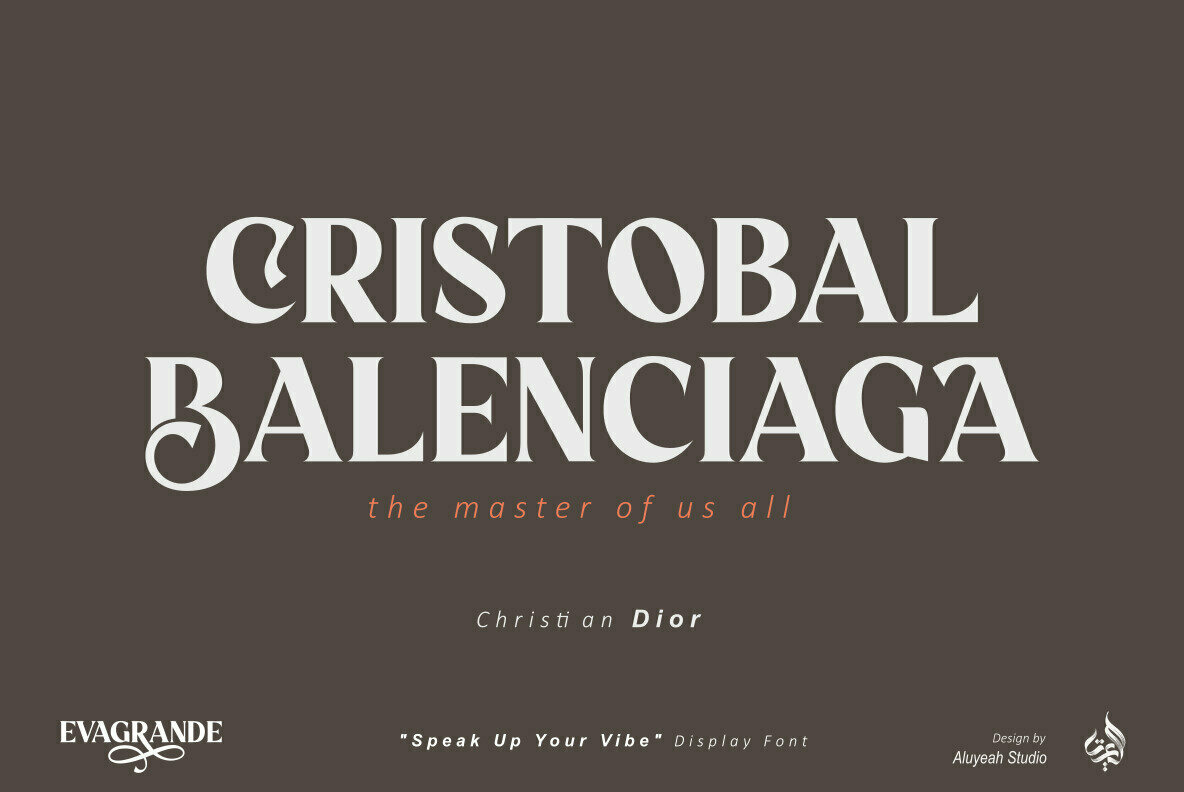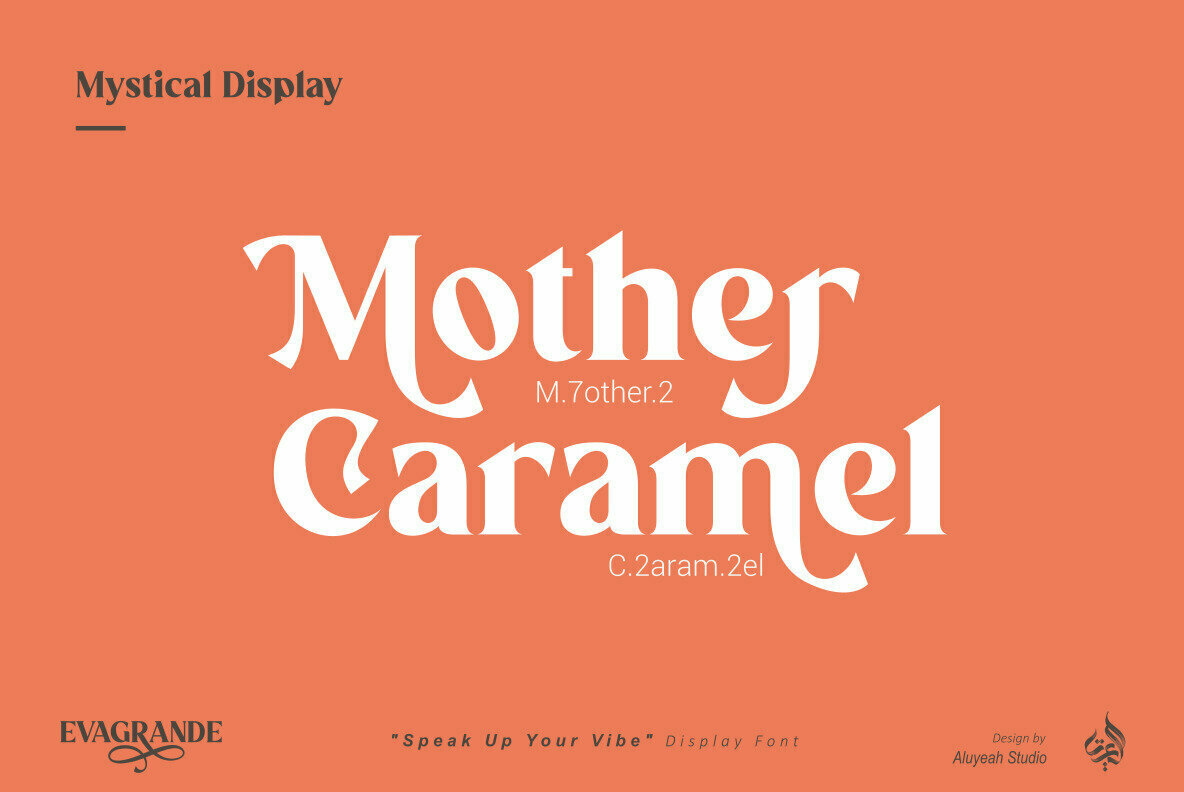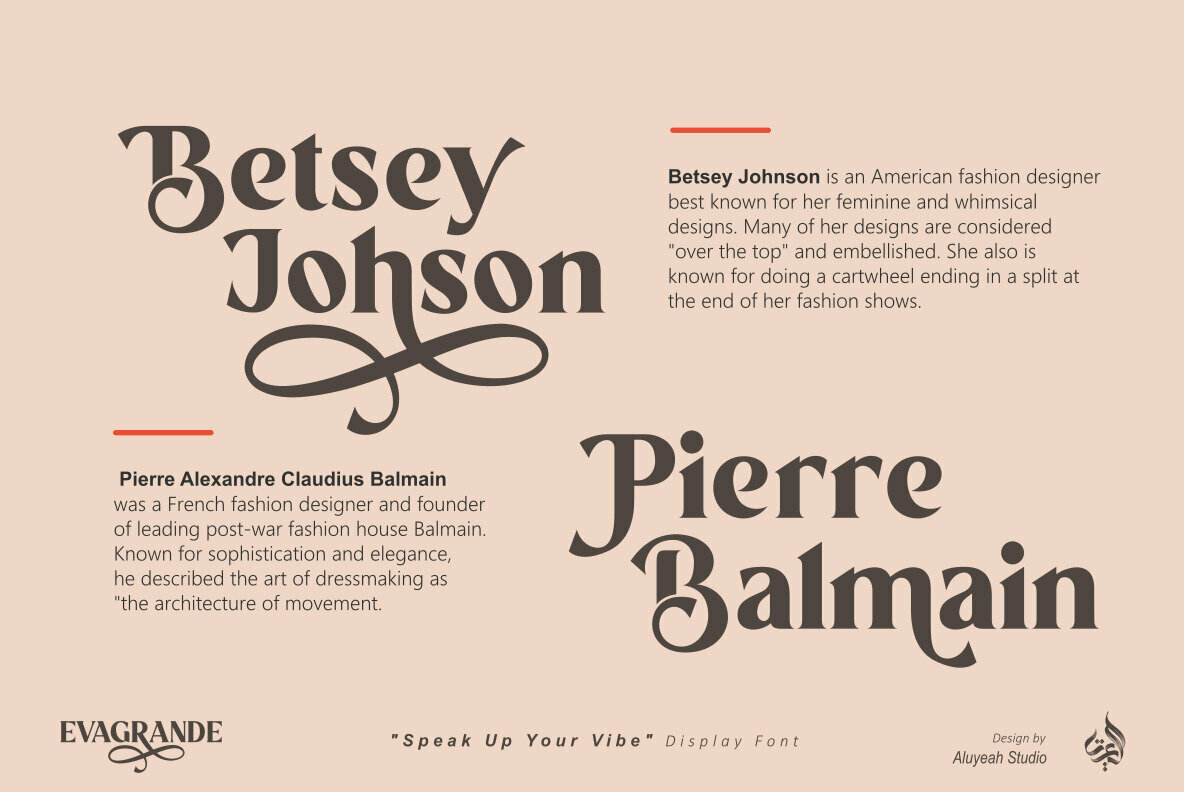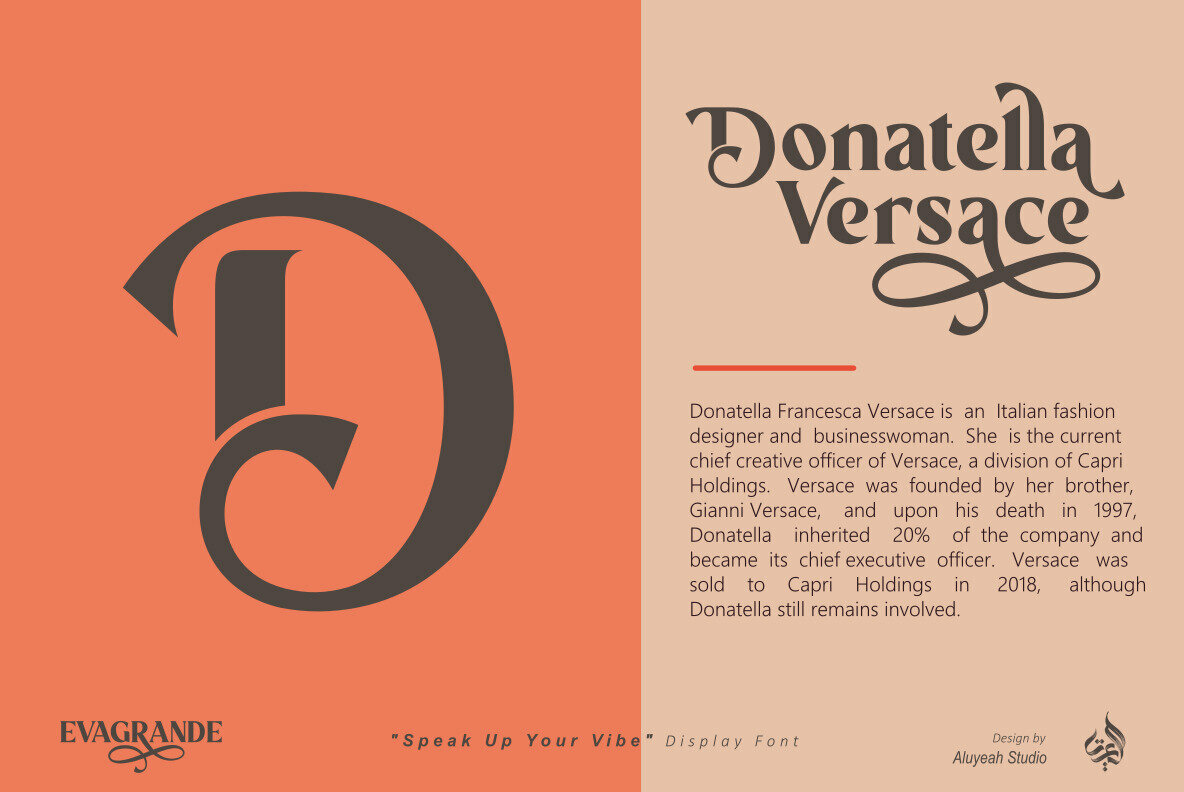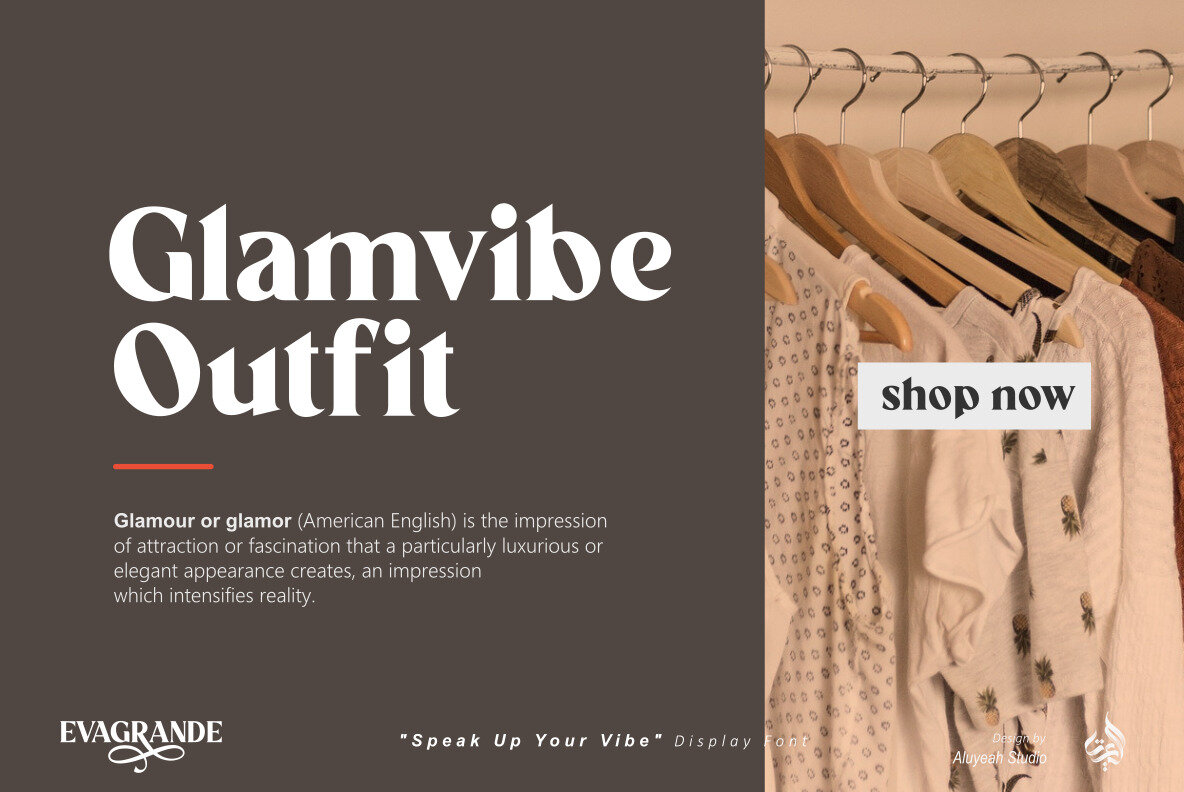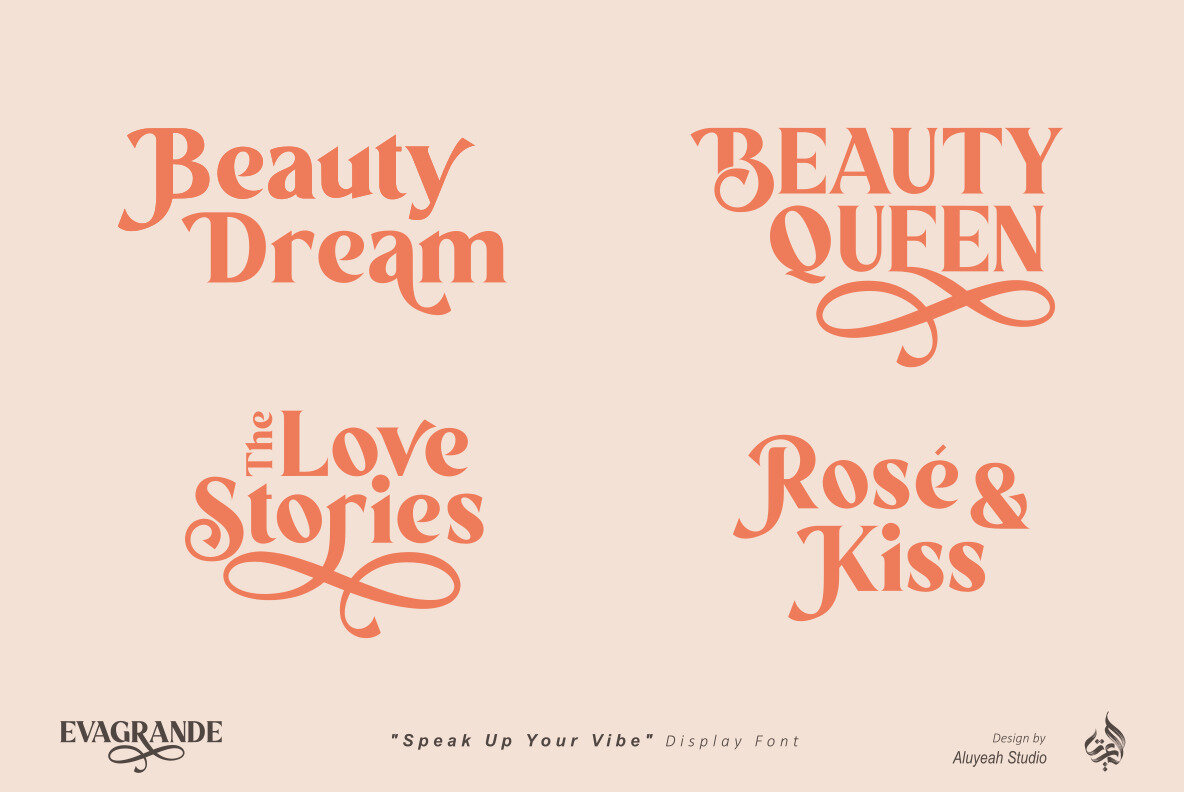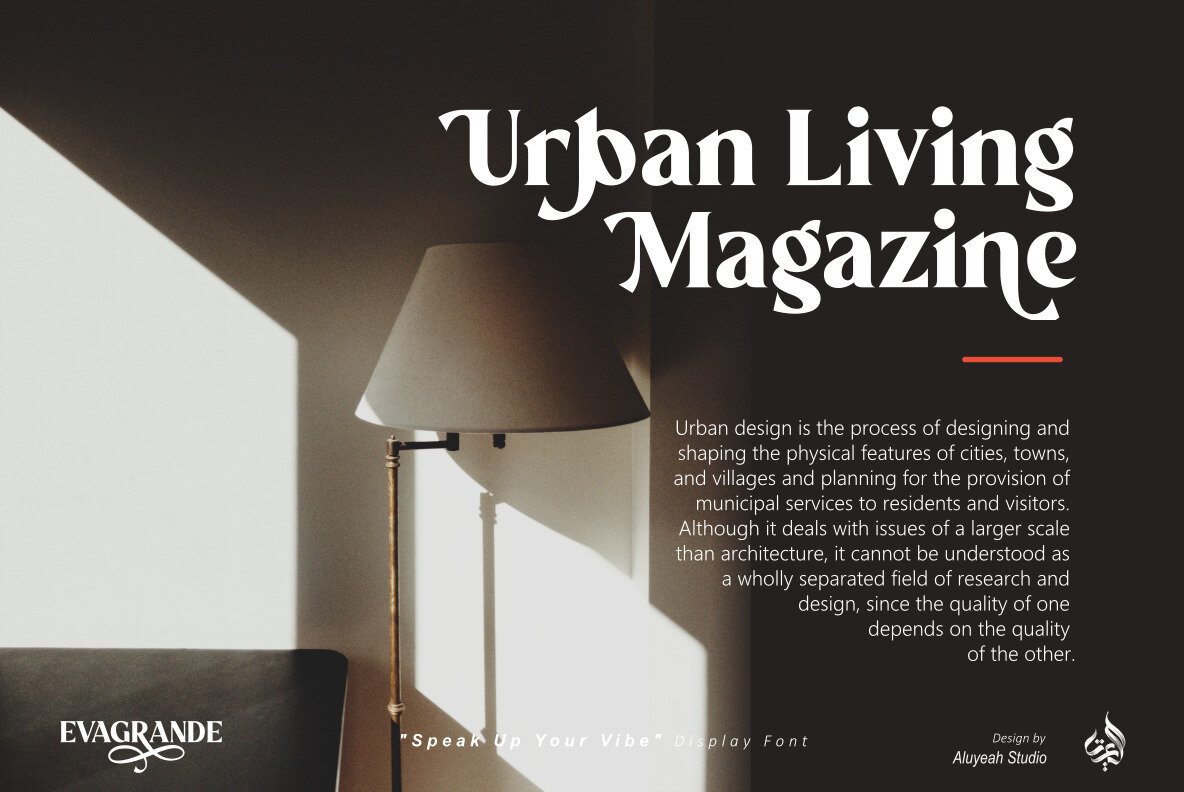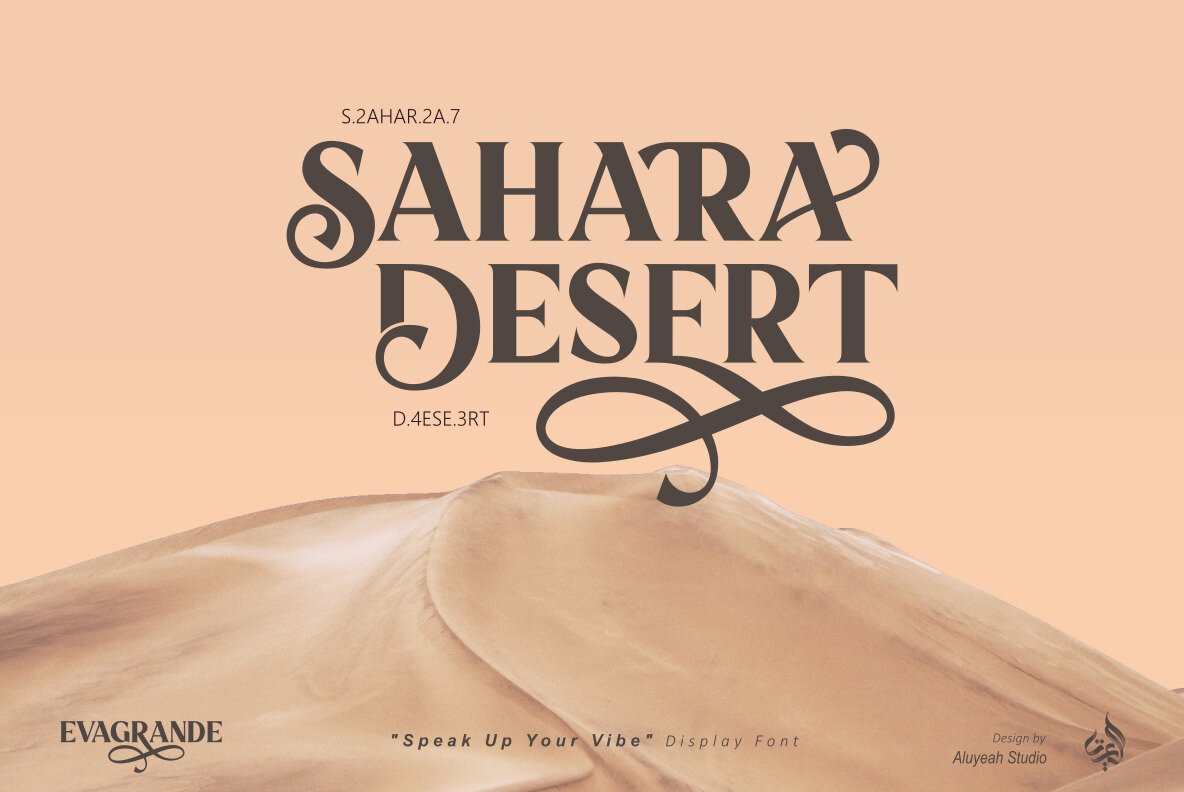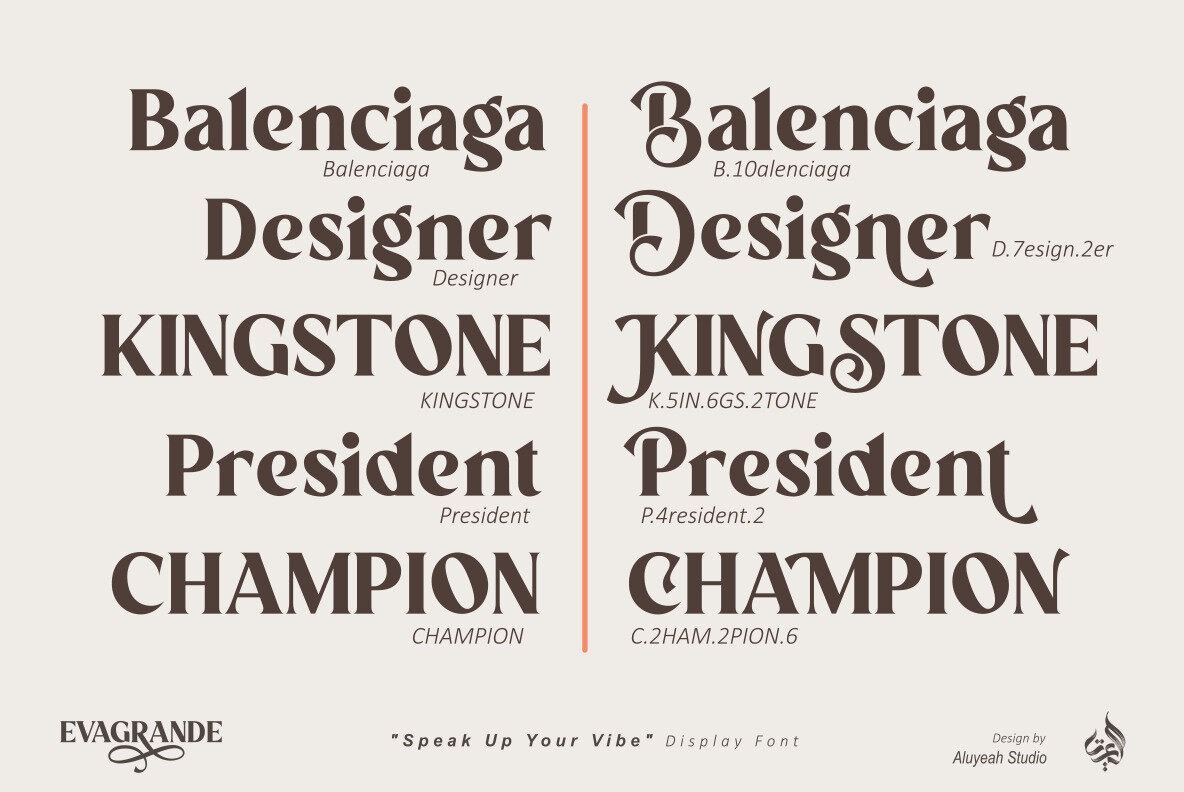
Evagrande Font
Evagrande is a striking display font designed to express individuality and creativity across various mediums. Its rich array of more than 150 distinctive alternates allows for dynamic customization, making it an ideal choice for magazines, headlines, websites, advertisements, product packaging, and an array of other design projects.Evagrande: A Bold Display Font with Captivating Alternates